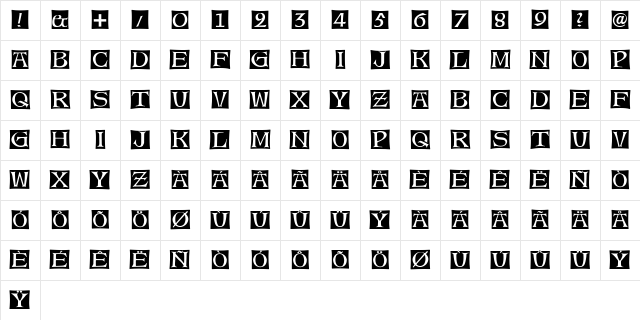
Alte Caps Regular Free Font
Alte Caps Regular
Design Context for Alte Caps
Alte Caps is a composed and adaptable typeface that performs quietly and consistently across a wide range of design contexts.